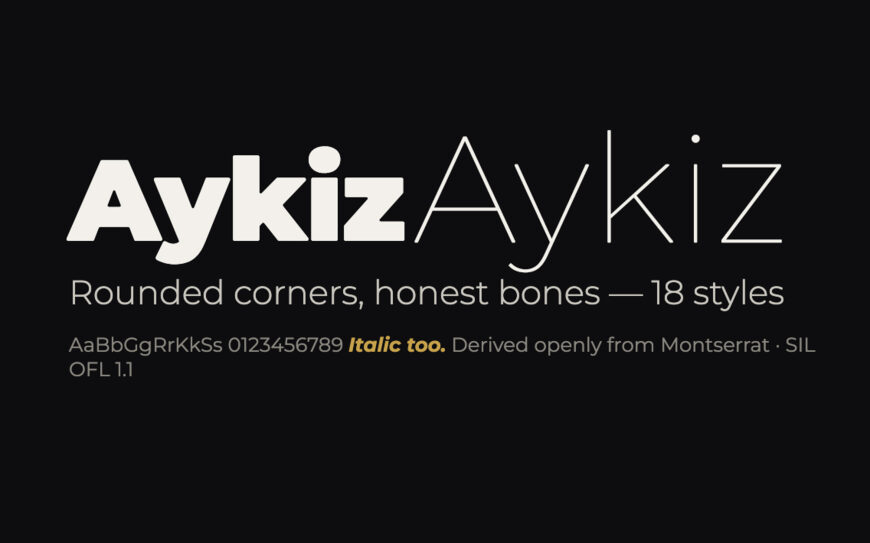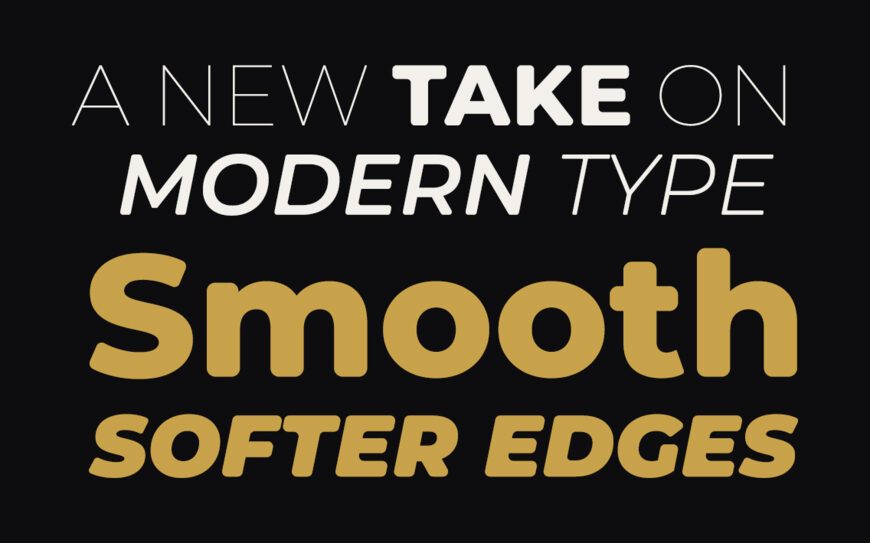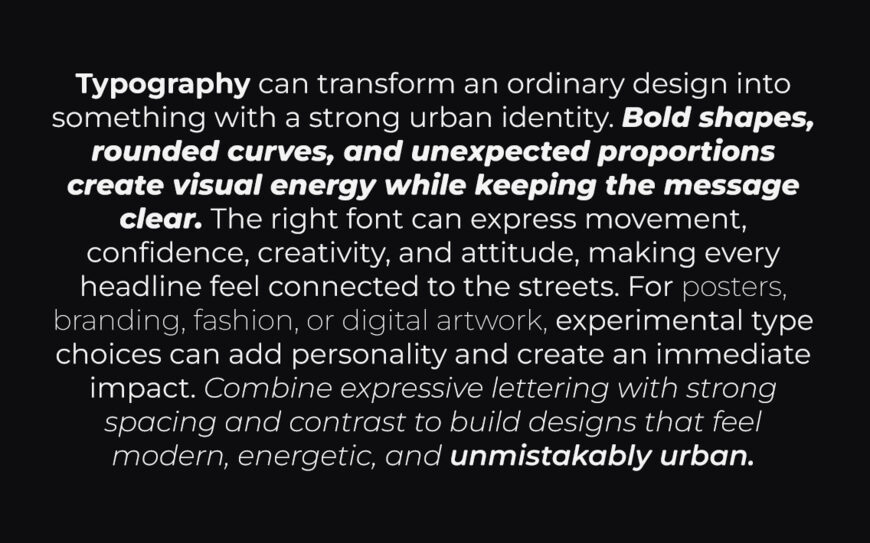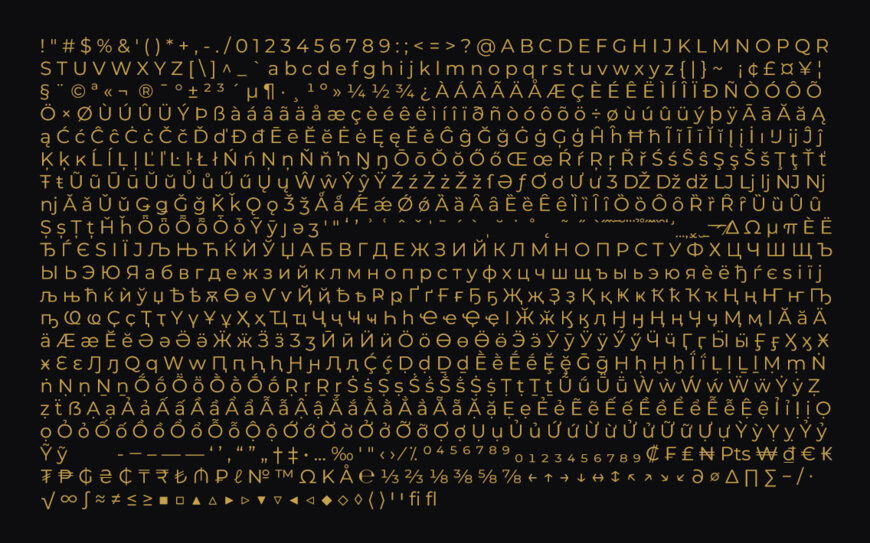
Aykiz is a geometric sans-serif family with gently rounded corners, warm at display sizes and quietly soft at text sizes. Includes 18 styles: 9 weights (Thin 100 to Black 900) plus matching italics.
It inherits Montserrat’s full character set (extended Latin, Vietnamese, Cyrillic), spacing, and kerning. If you’re looking for a “rounded” and smooth version of Montserrat, this family was made for you.